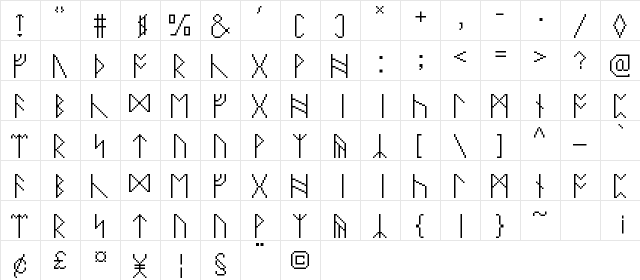
PixelRunes Medium
Design Context for PixelRunes Typeface
PixelRunes is rooted in pixel-grid construction, making it a natural fit for game UI, retro computing aesthetics, and digital nostalgia projects.
A natural choice for retro game titles, chiptune music branding, 8-bit UI, and digital nostalgia projects.
Pro Tip: Pair PixelRunes with flat colour palettes and simple geometric UI elements to reinforce its digital aesthetic.